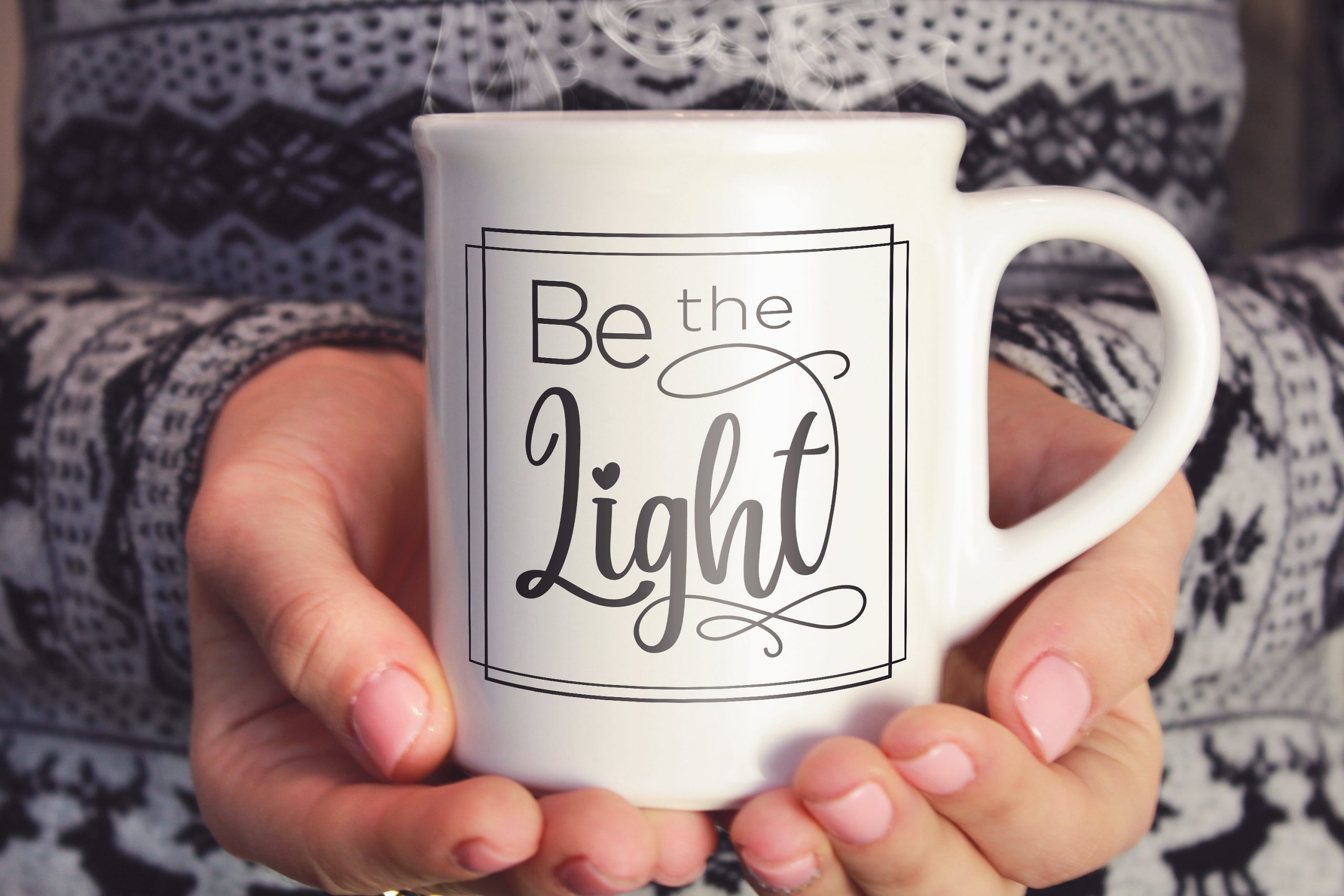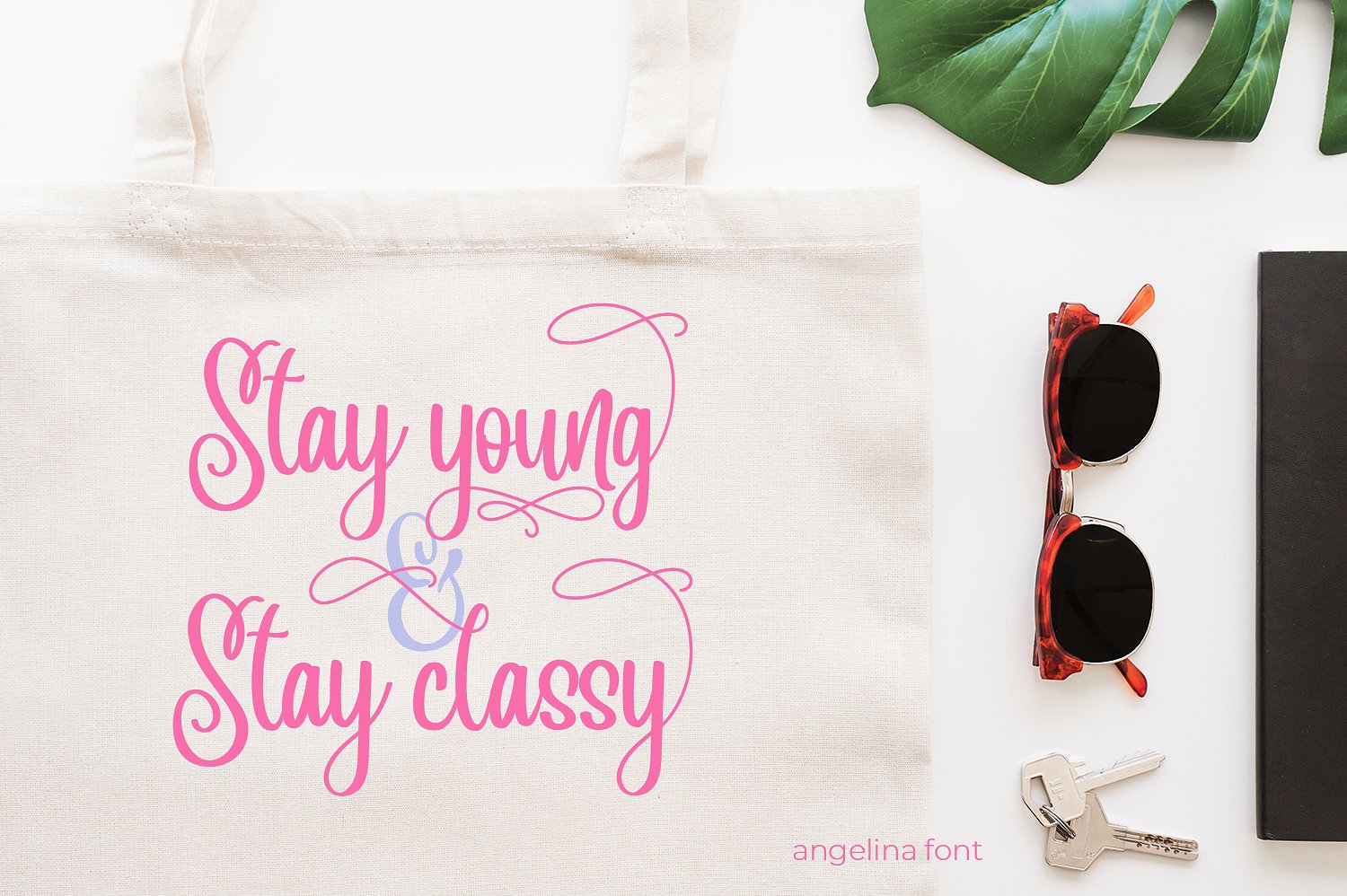
Angelina Handwritten Font
A work that is purely a result of handwriting, has a natural characteristic. Introducing Angelina Font. Angelina – Beautiful Handwritten. Made with naturally handwritten and modern style. it’s bring beautiful and modern typeface. Angelina font best use for wedding, branding, logotype and quotes.